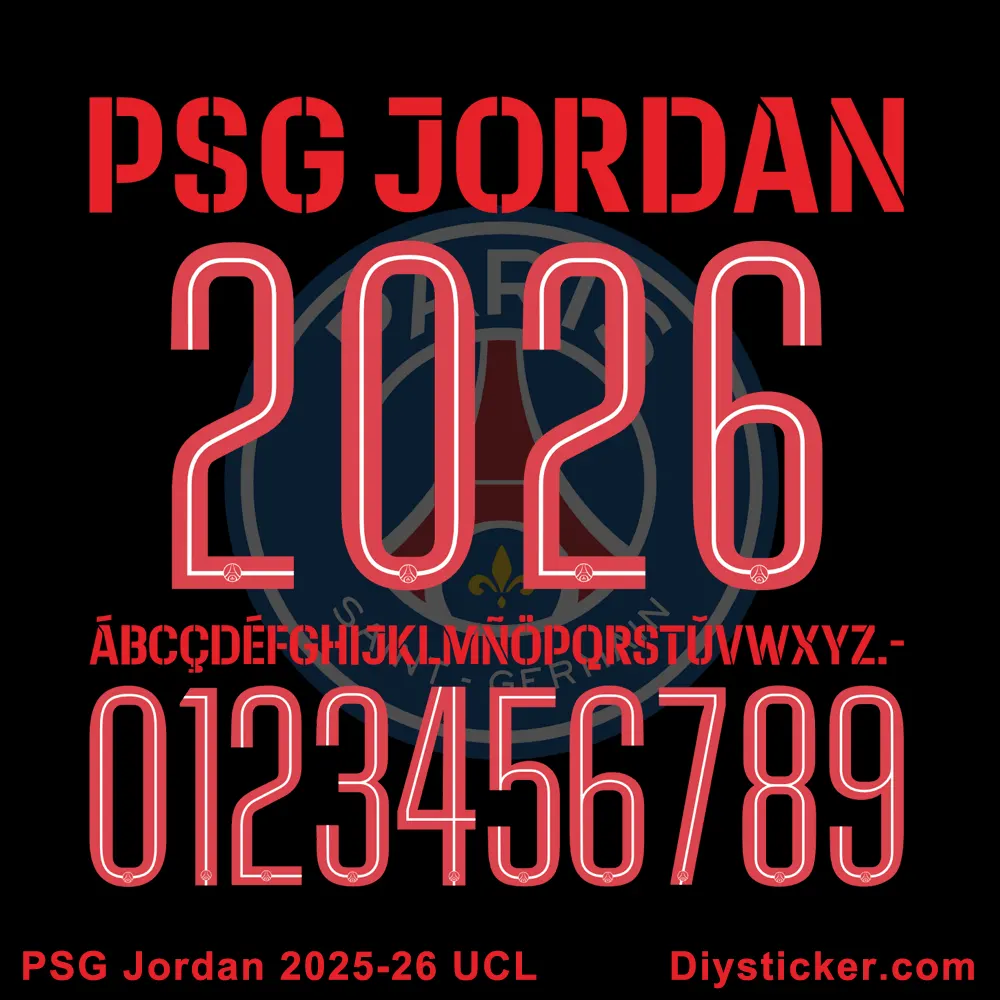
Experience the unique fusion of football and streetwear culture with the official PSG Jordan 2025-2026 UCL Font. This exclusive typeface is designed specifically for the Paris Saint-Germain x Jordan collaboration kits used in the UEFA Champions League, featuring distinctive character styling that blends sport and fashion aesthetics.